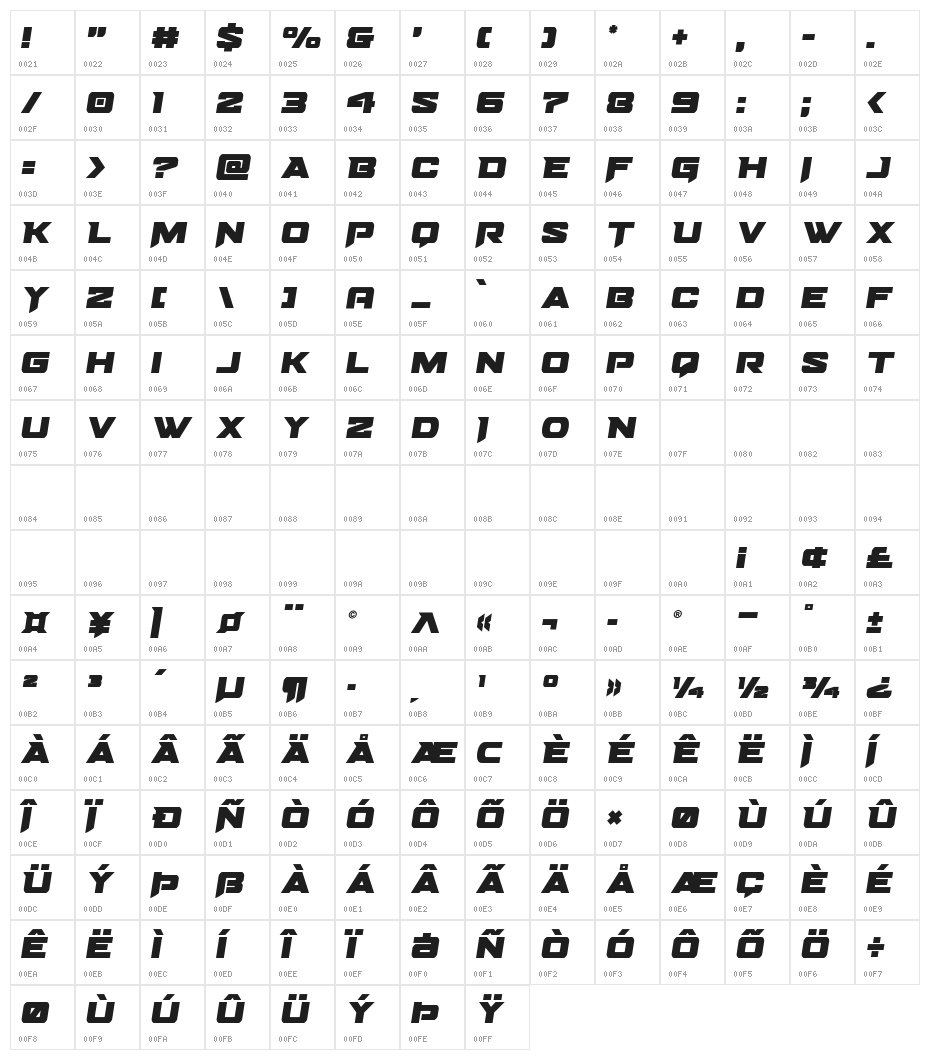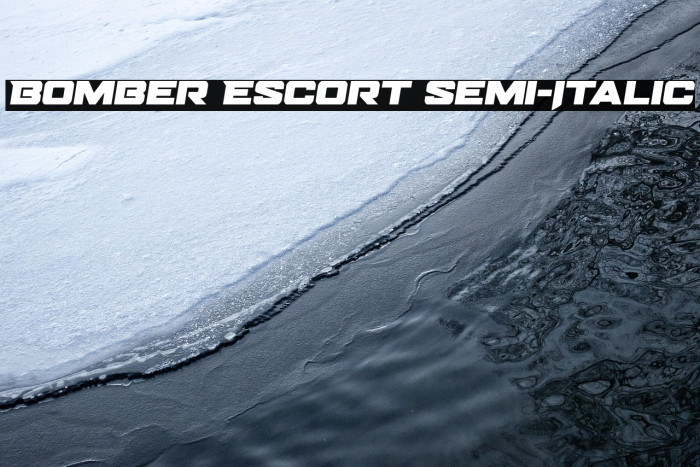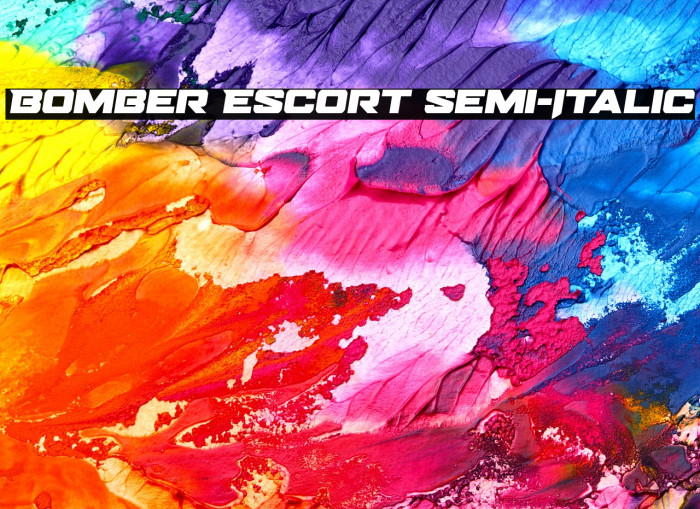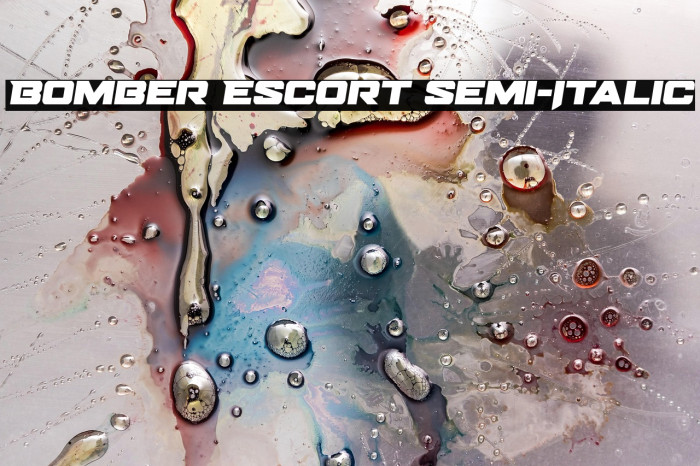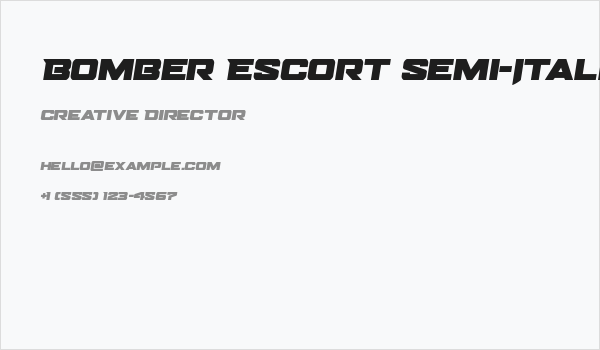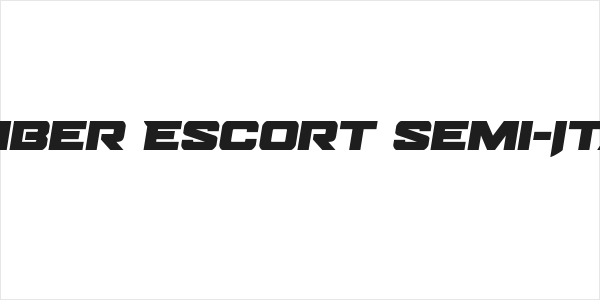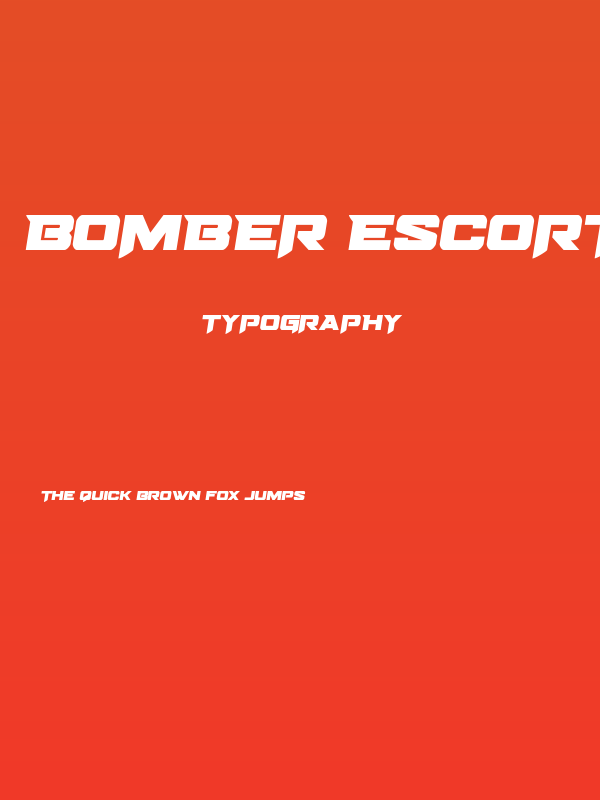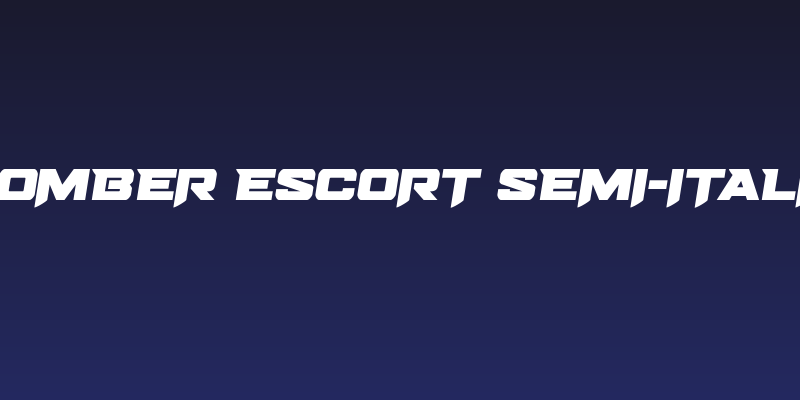
Bomber Escort Semi-Italic Font
Bomber Escort Semi-Italic Description
This font features a bold, angular design with a semi-italic slant, giving it a dynamic and aggressive appearance. The characters are sharply defined with a futuristic aesthetic, making it ideal for projects that require a strong, impactful visual presence. The uppercase and lowercase letters maintain a consistent style, with the numbers and special characters following suit. The font's geometric shapes and sharp edges contribute to its modern and edgy look, suitable for attention-grabbing headlines or branding that demands a bold statement.
| Proposed Projects | Ideal for use in video game titles, movie posters, sports branding, and any project that requires a strong, impactful visual presence. |